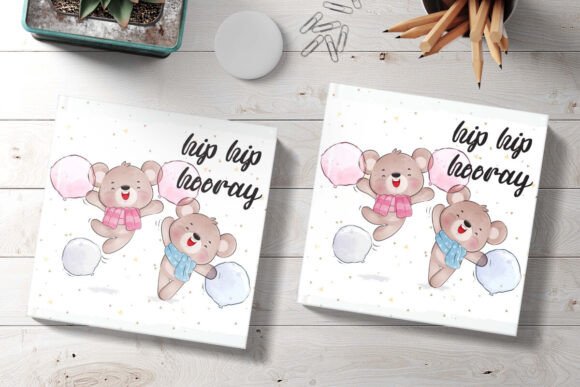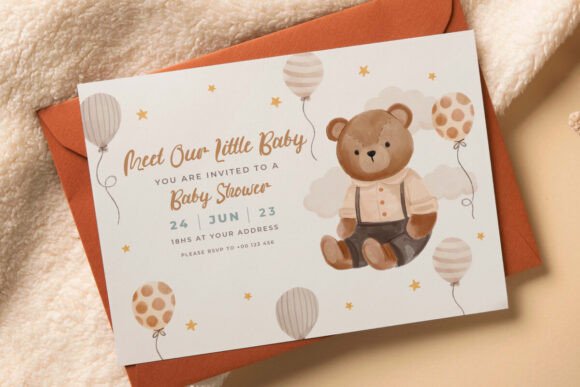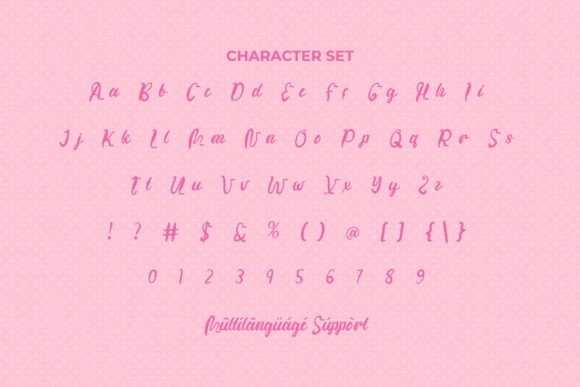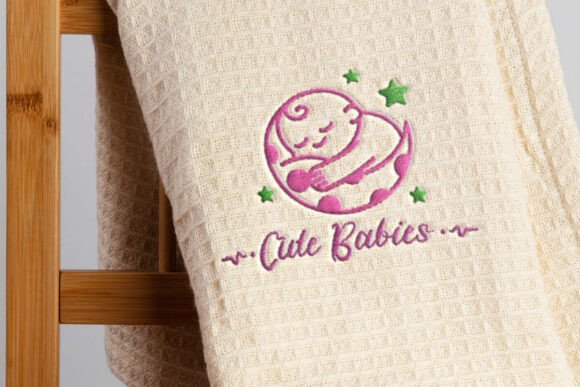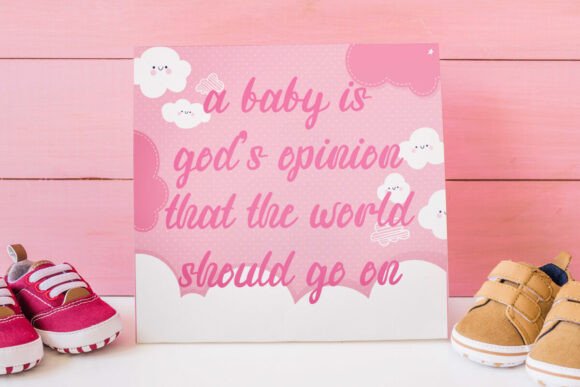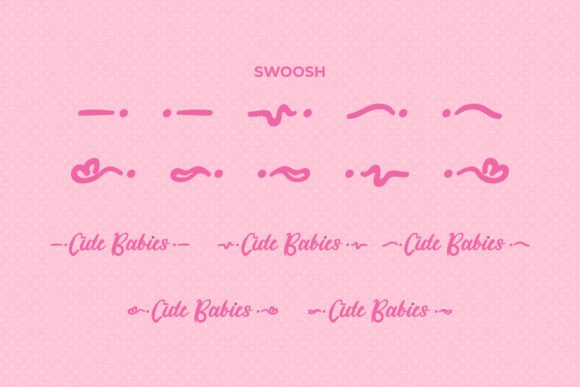
Cute Babies Font – Free Download
Introduction to Cute Babies Font
Cute Babies Font is an adorable calligraphic script font.
The fine lines at each end of the letters make it look special and still easy to read This font has modern appearance making it suitable for many industries, such as beauty product, café, event or wedding organizer, fashion, florist, homeware, kids stuff, printing, publishing, salon and spa, and more.
Key Features of Cute Babies Font
Why Choose Cute Babies Font?